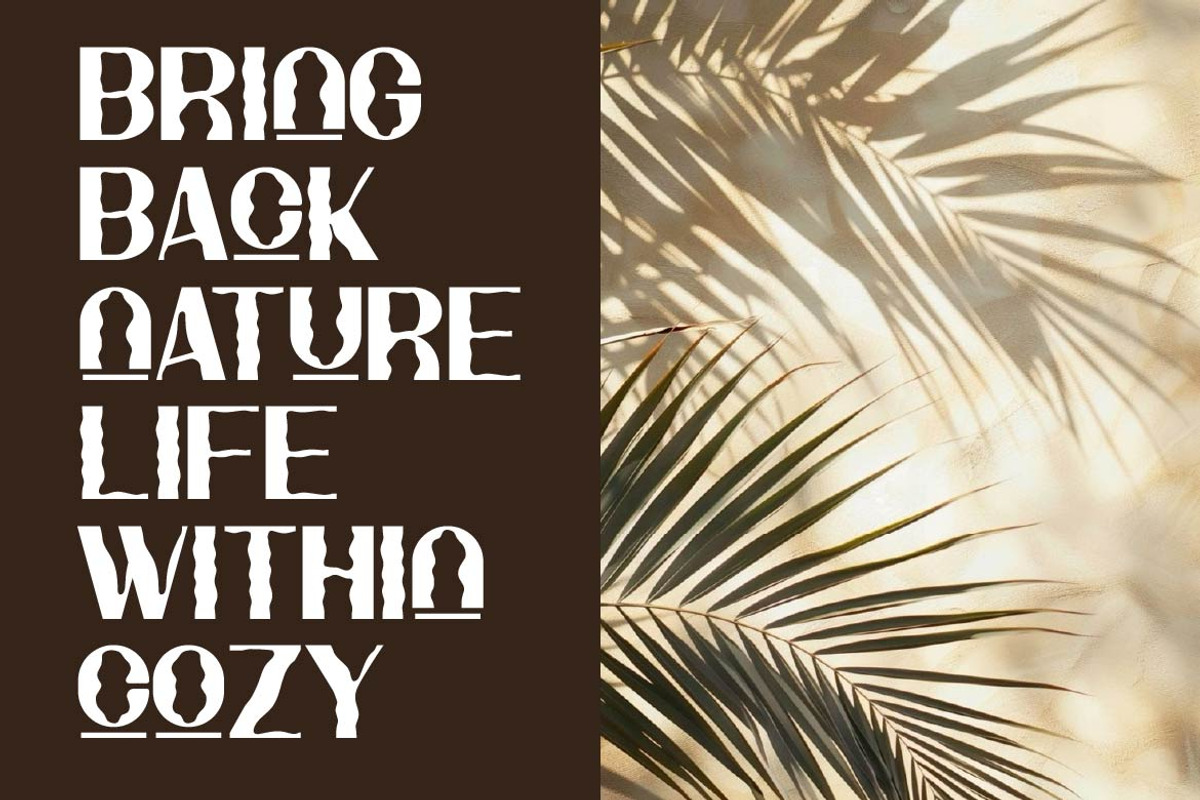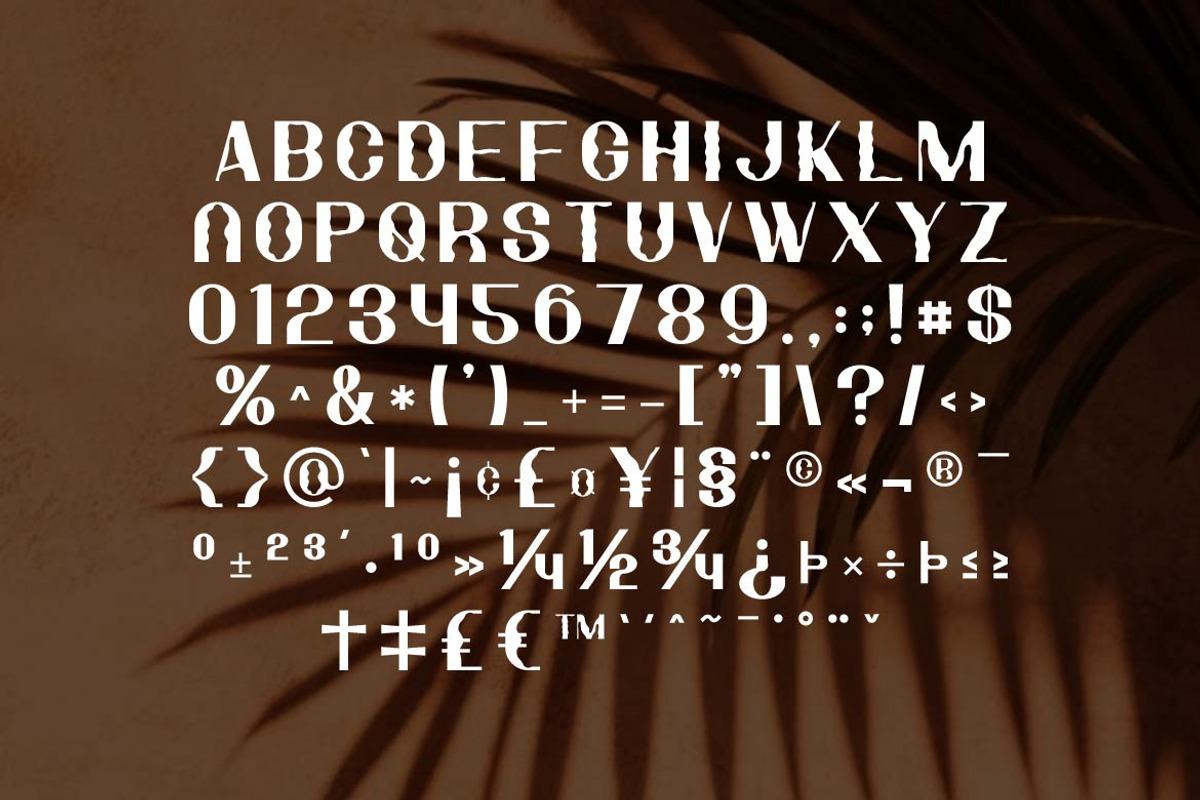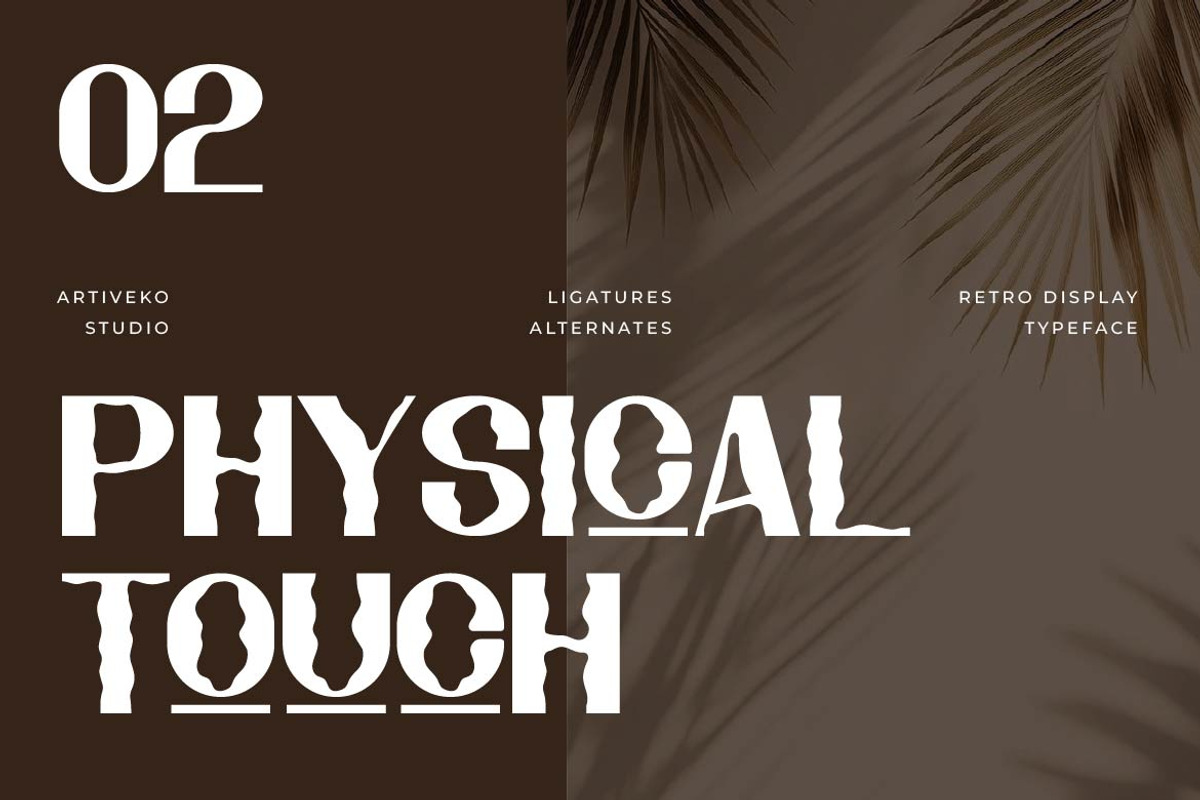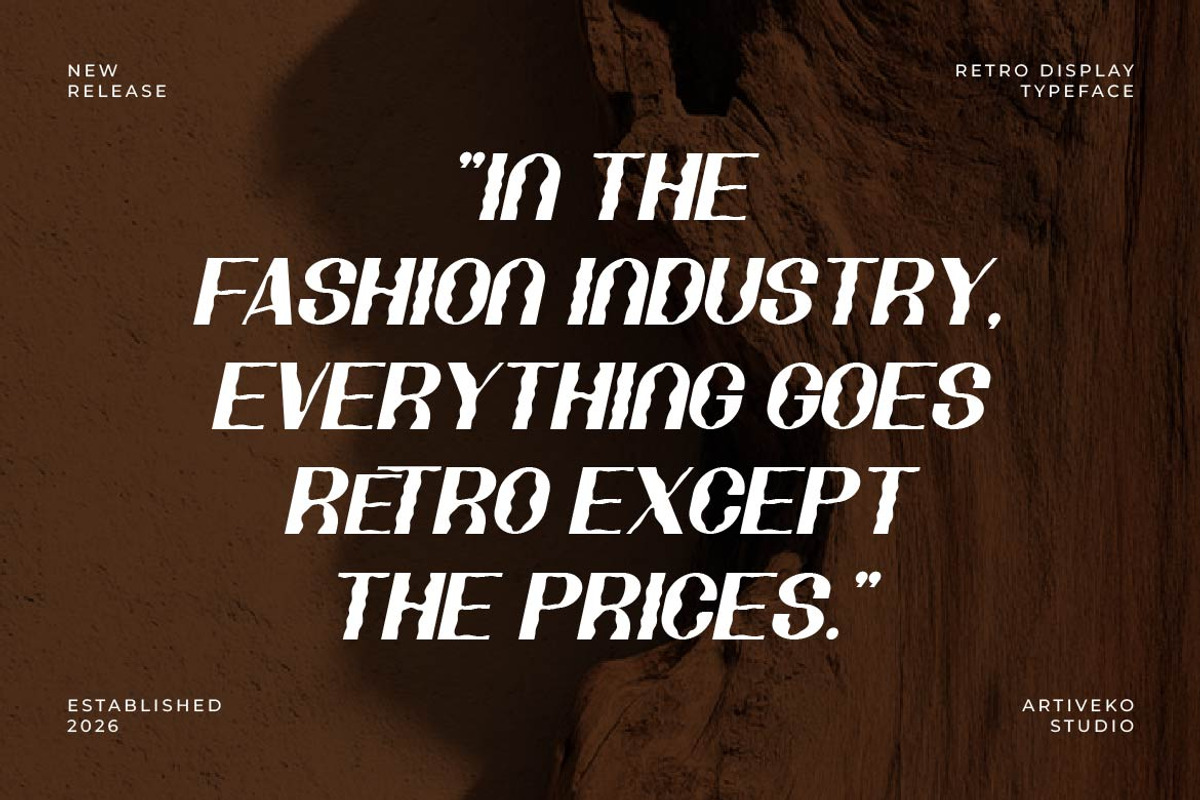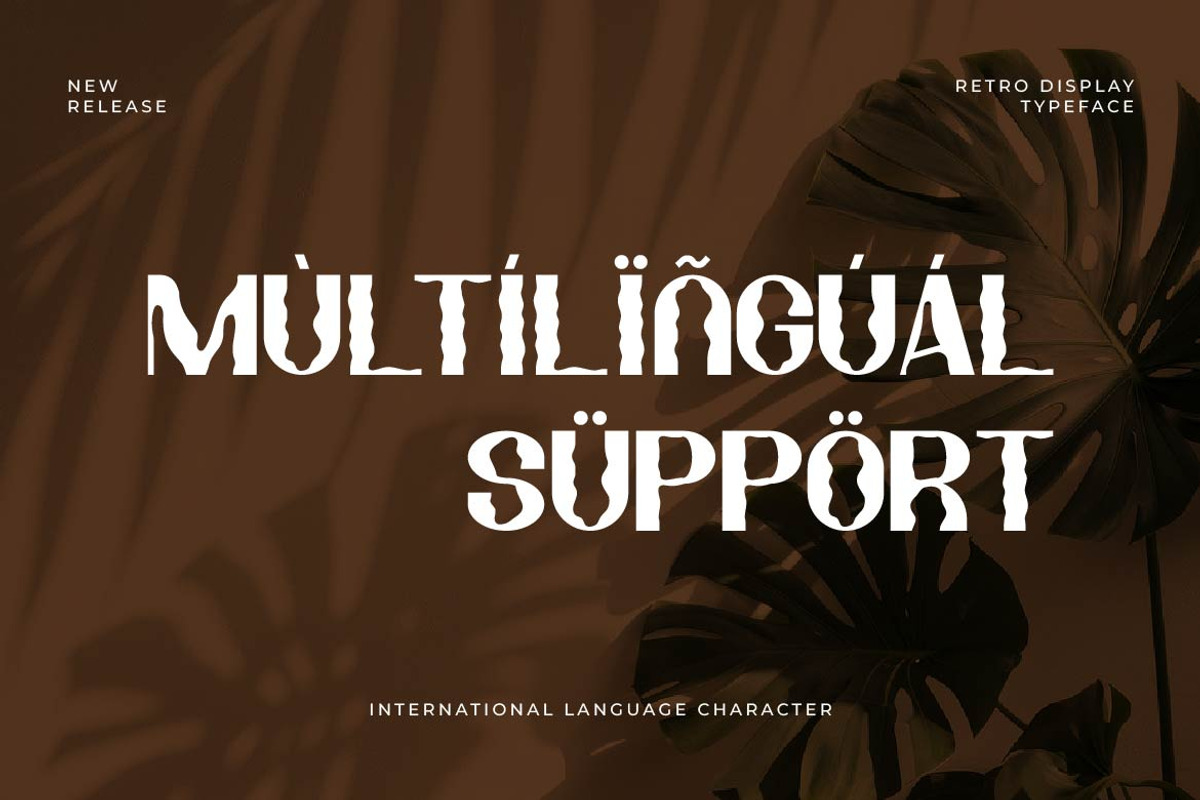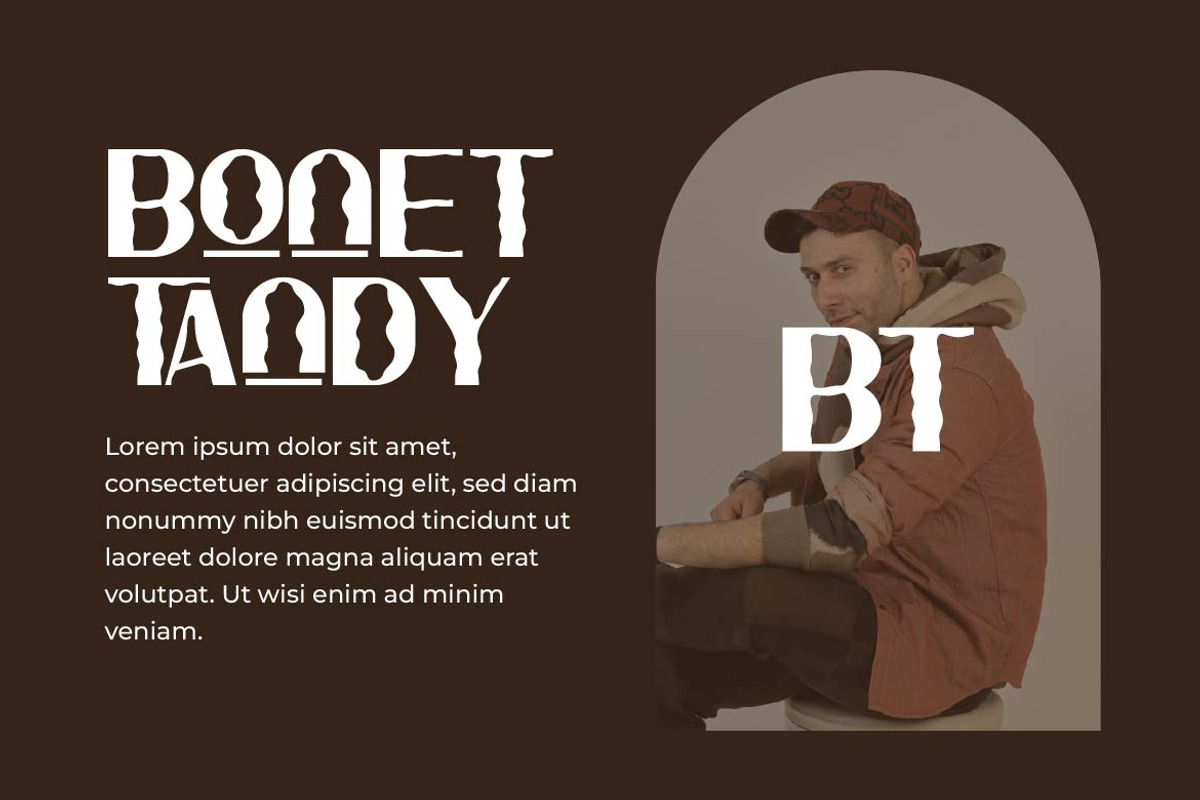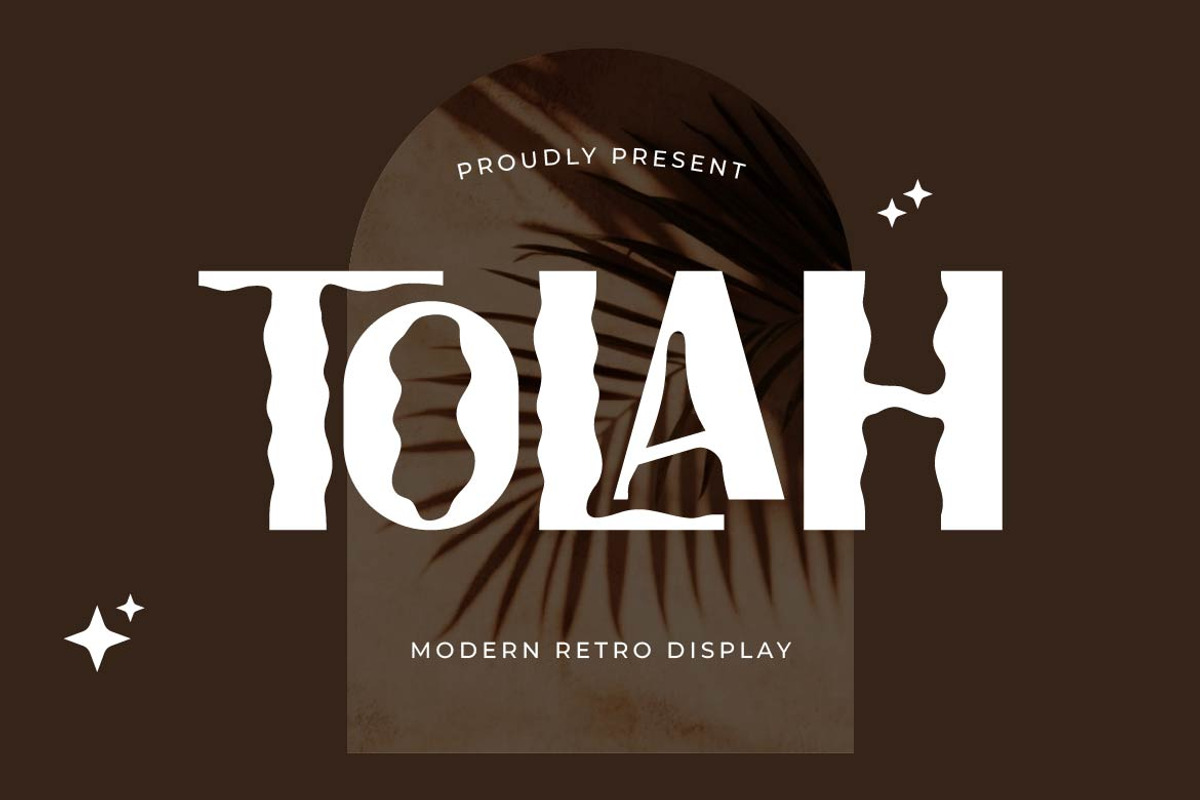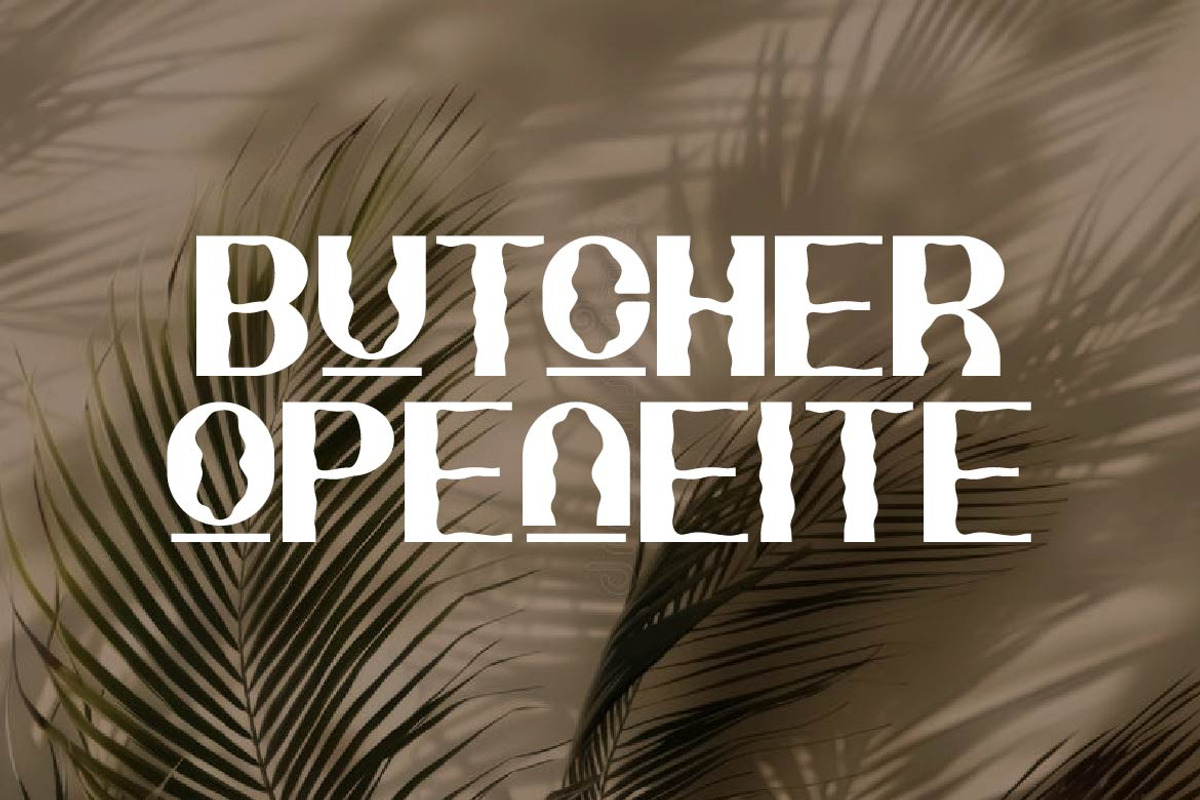
Tolah – Heritage Retro Font
Bold nostalgia never goes out of style.
Tolah is a retro display font inspired by vintage signage, classic advertising, and the golden era of bold typography. With distinctive curves, strong silhouettes, and timeless retro character, Tolah transforms every headline into a memorable visual statement.
Designed for retro branding, vintage logos, café identities, restaurant menus, product packaging, apparel graphics, merchandise, concert posters, album artwork, and editorial headlines, Tolah brings authentic old-school personality while remaining versatile for contemporary creative projects.
Whether you're creating a nostalgic coffee brand, a heritage clothing label, or a bold festival poster, Tolah delivers the warmth, confidence, and handcrafted spirit that make retro design feel timeless.
Tolah isn't just a display font—it's a celebration of vintage culture reimagined for modern creators.
Ton of glyphs
Ligatures & Alternates